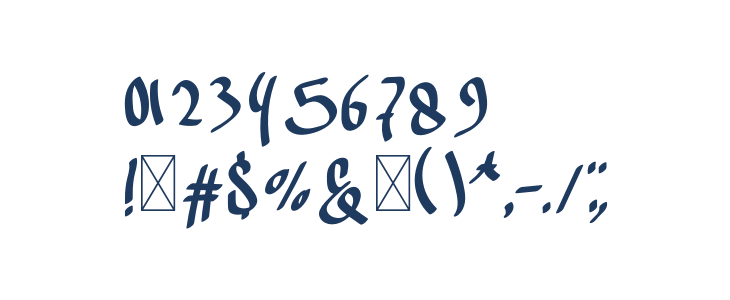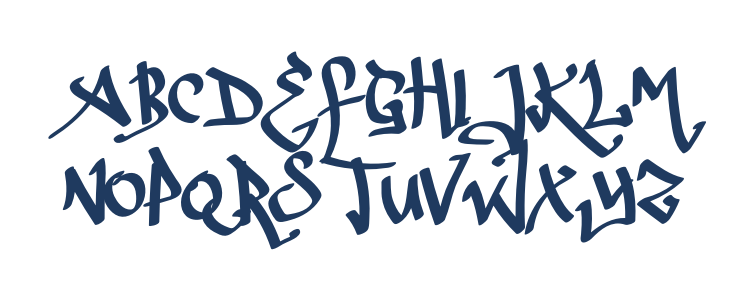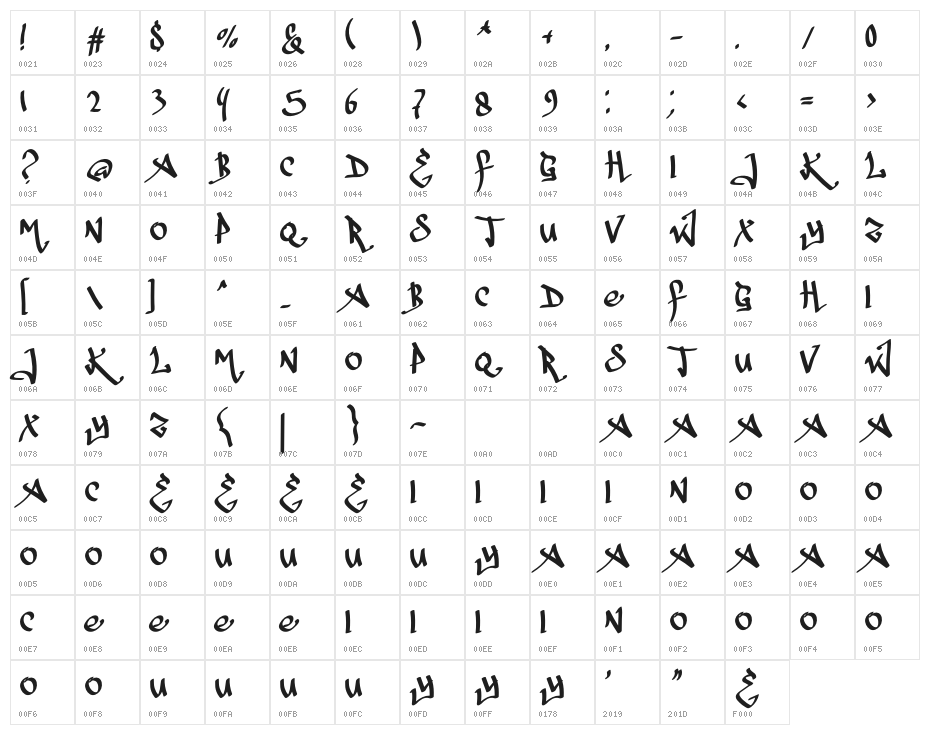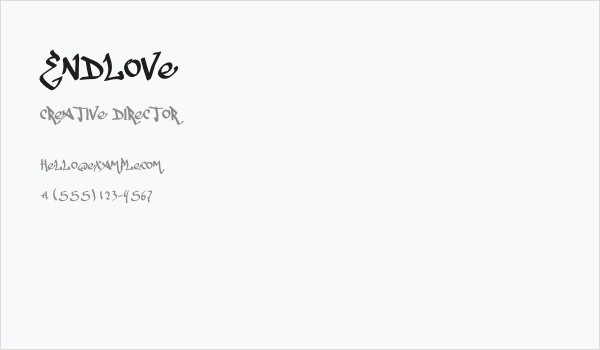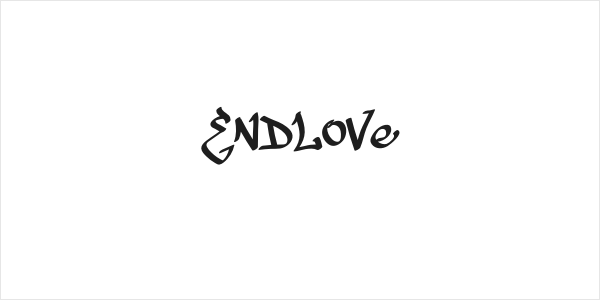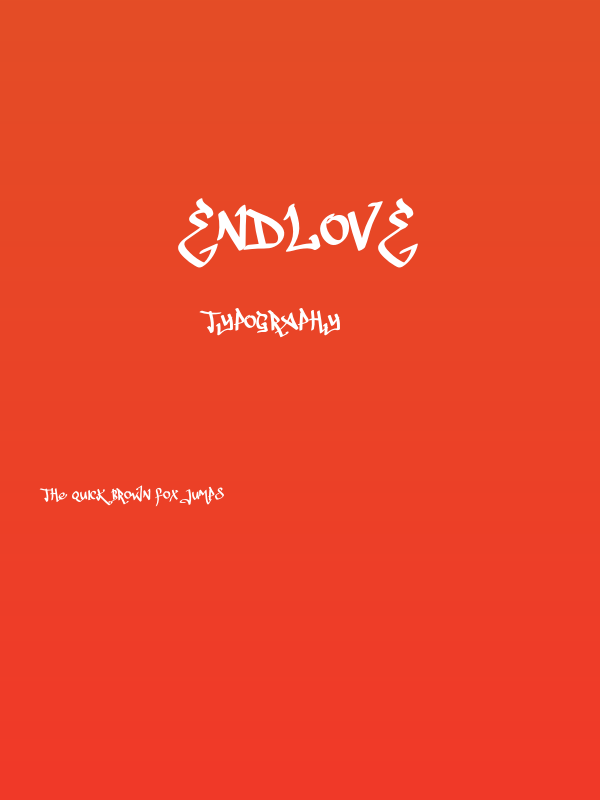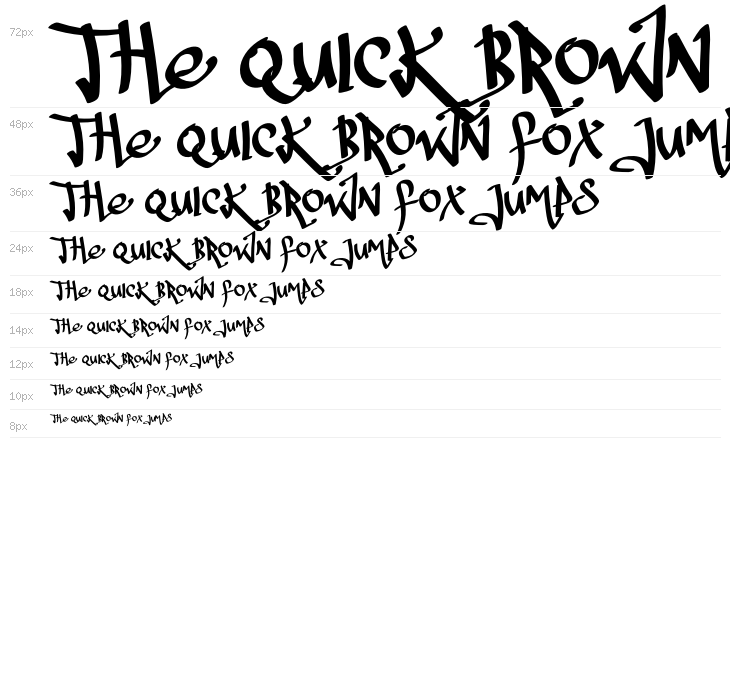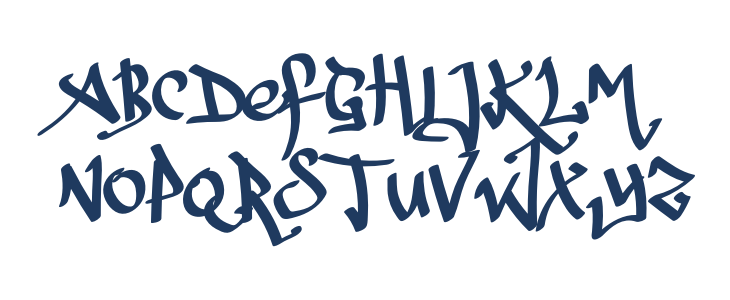
Endlove Font
Endlove Description
Fonts by Mr.Soon Design
| Overall Style | Decorative, Urban, Expressive |
| Use Case | Logos, Headlines, Posters, Artistic projects |
| Proposed Projects | Street art posters, music album covers, event flyers, branding for creative industries, apparel design. |